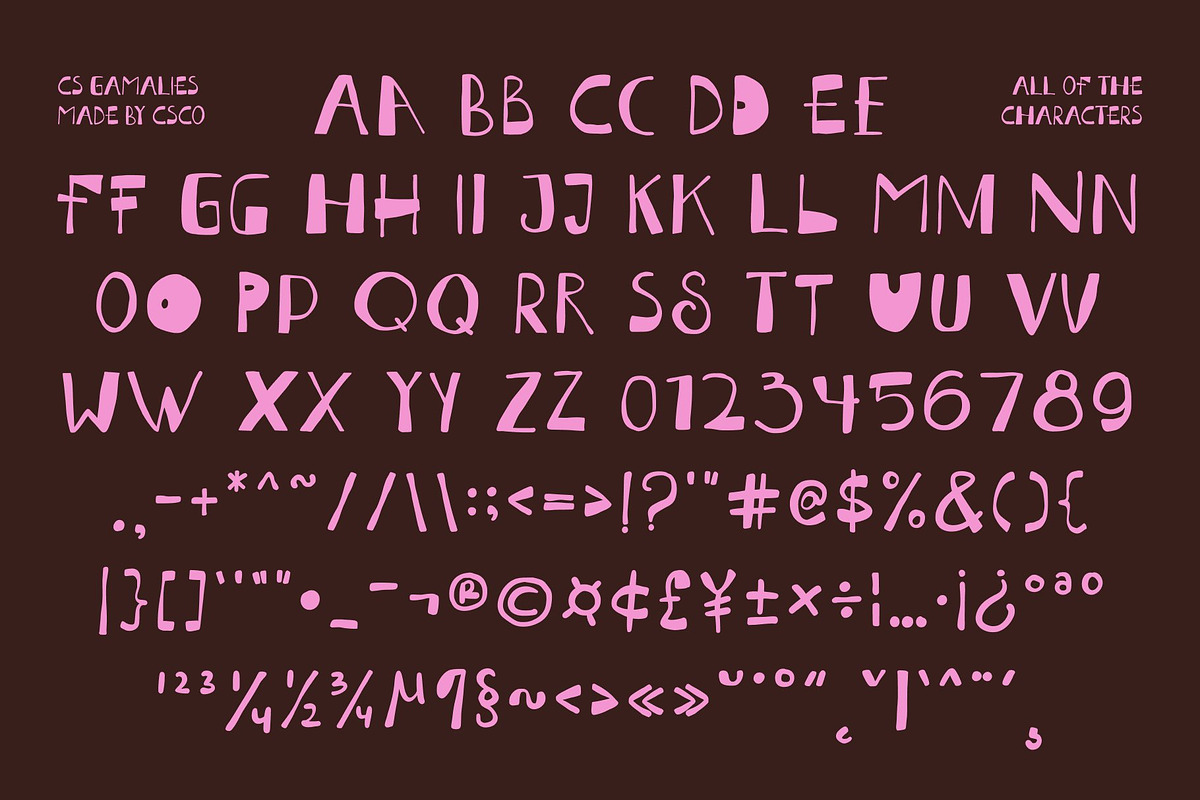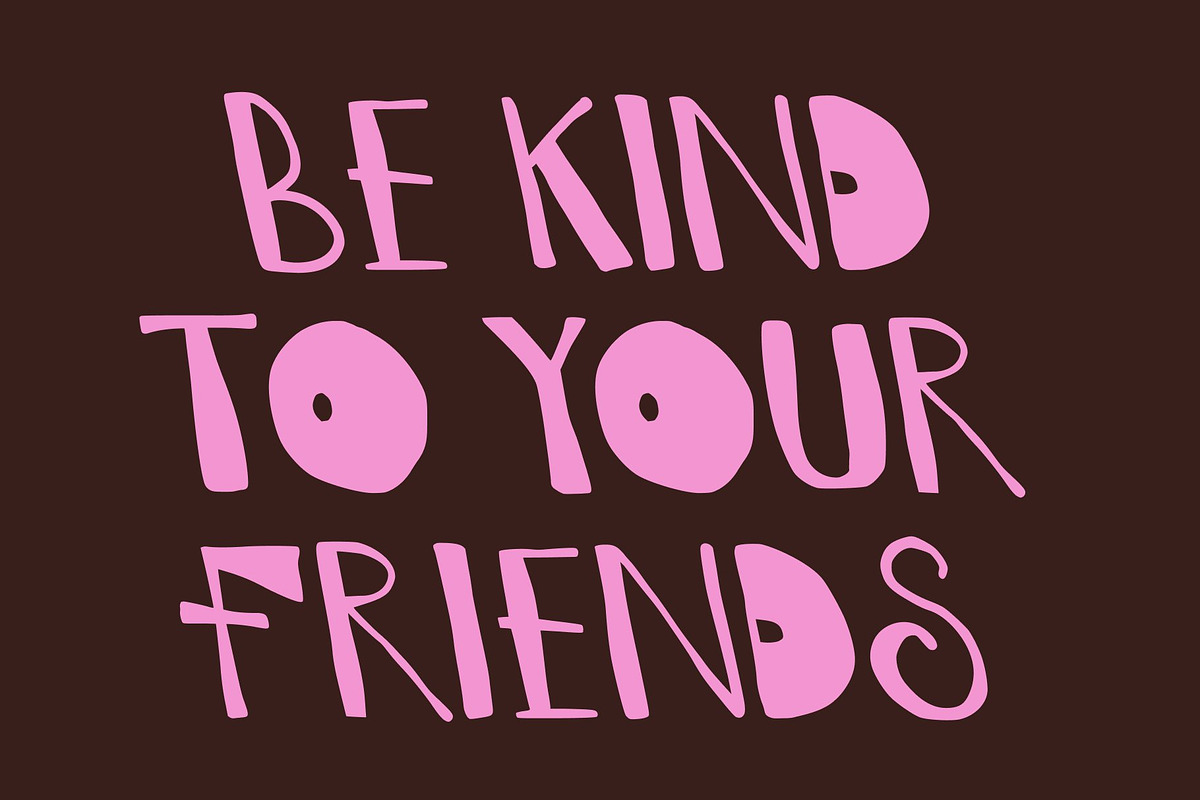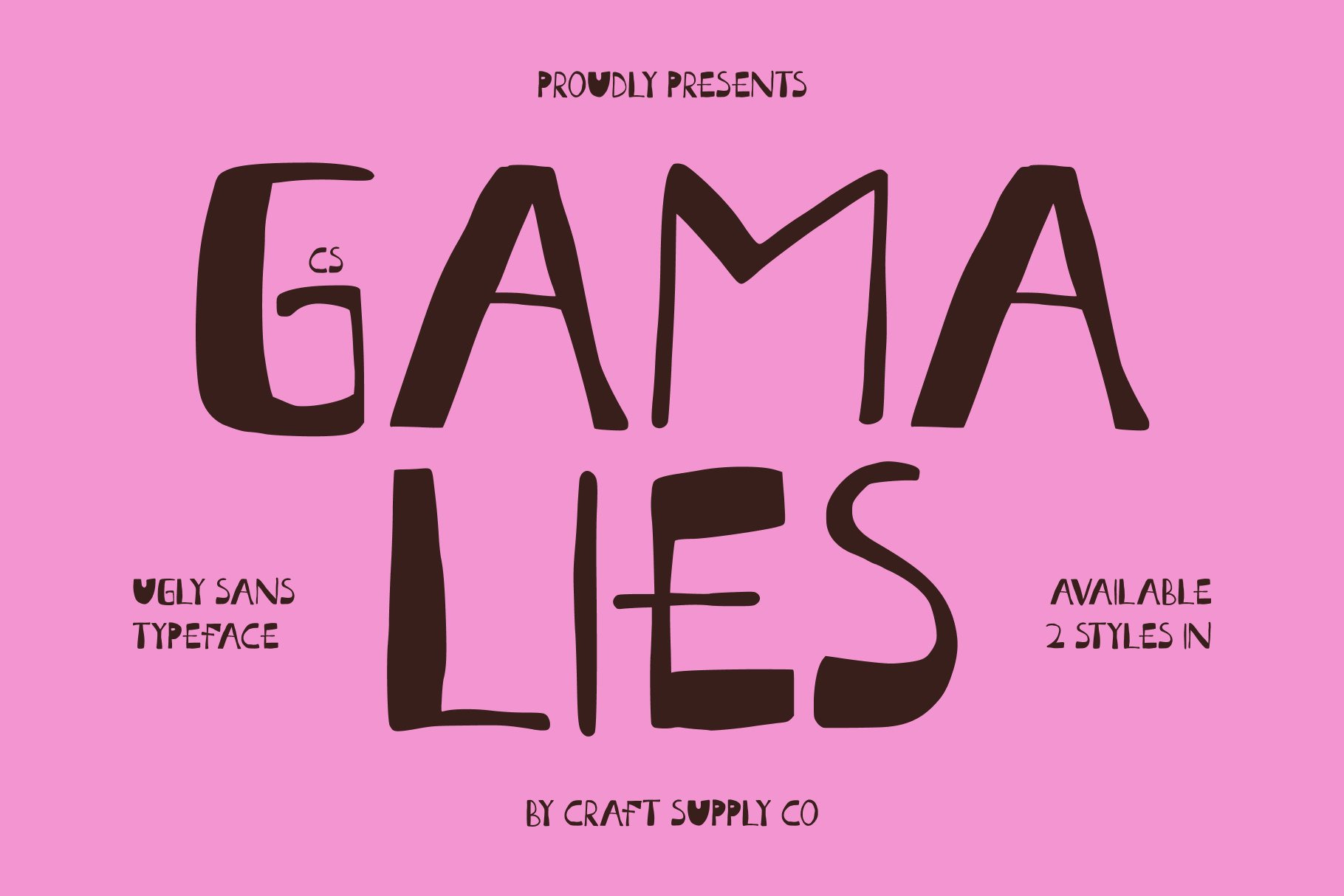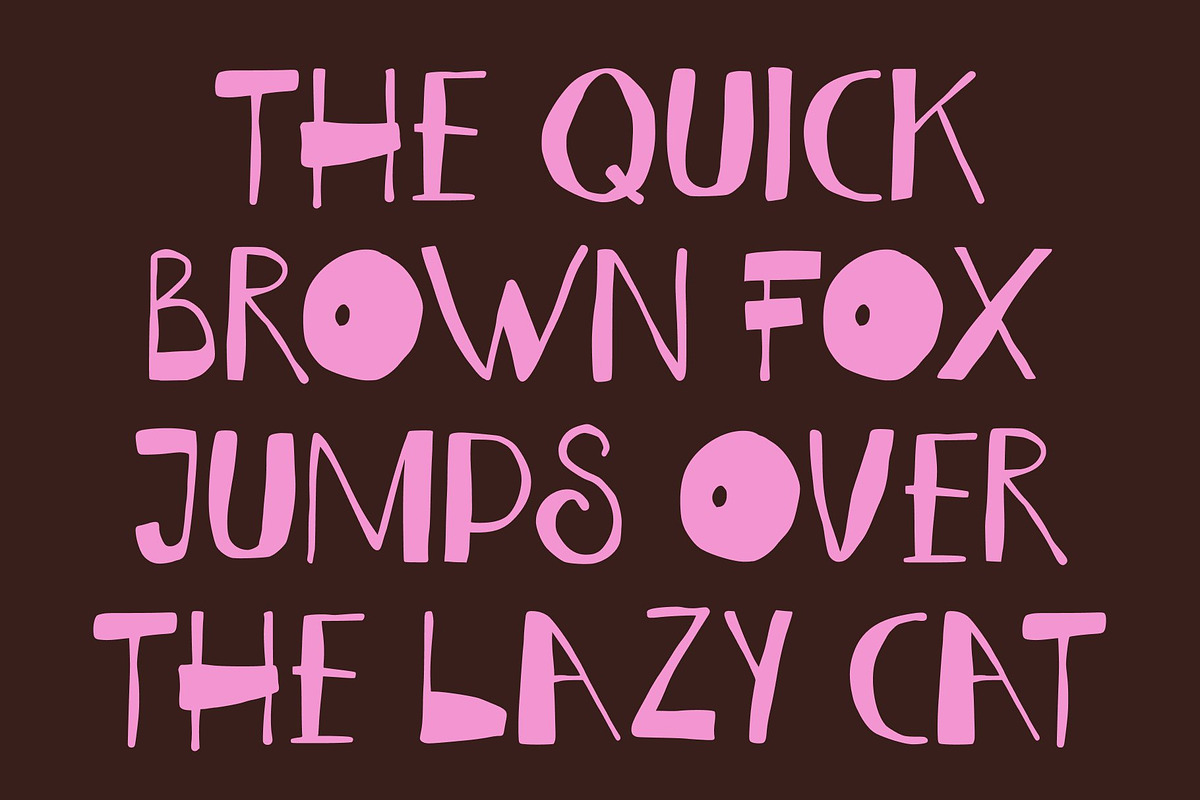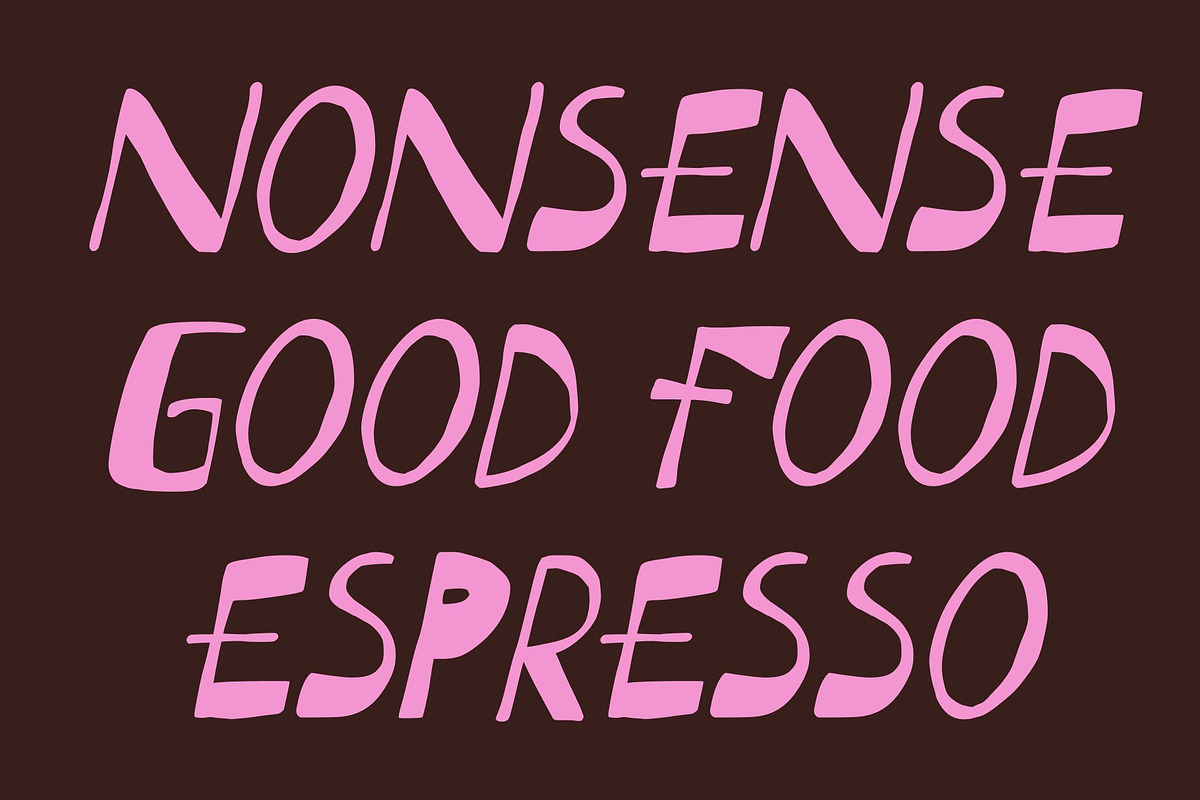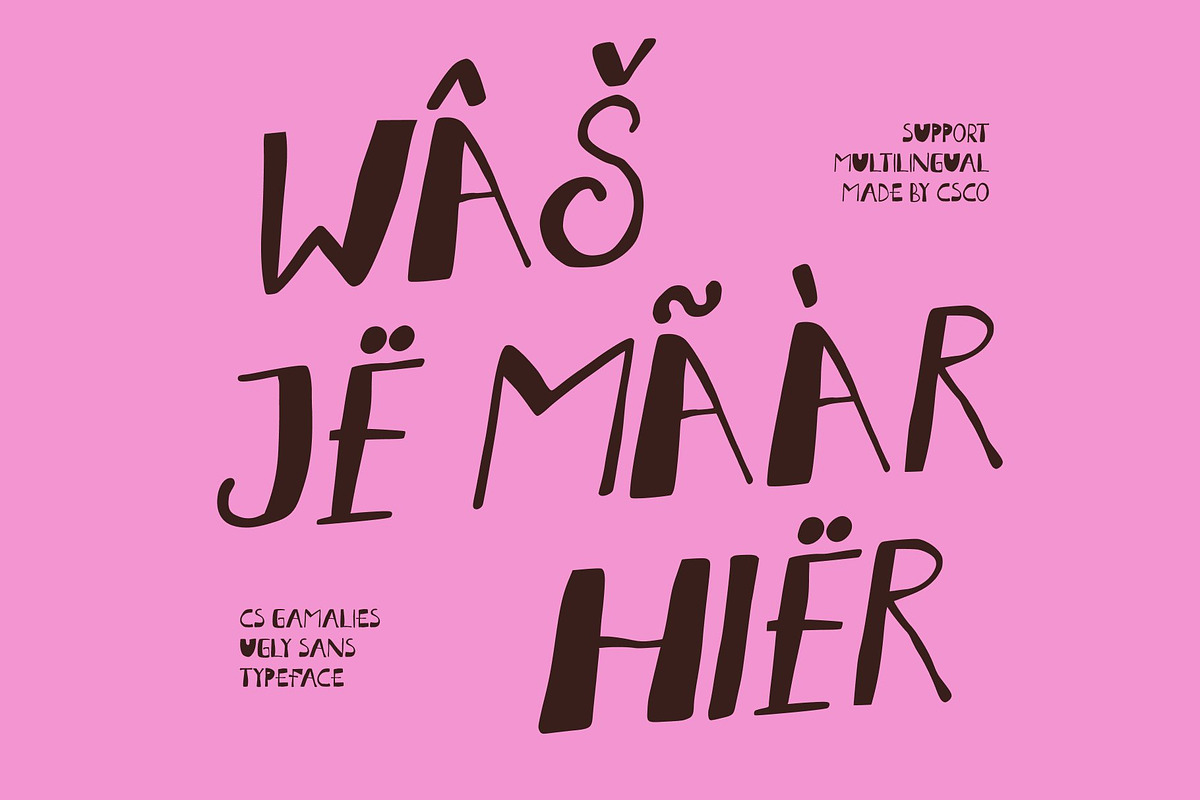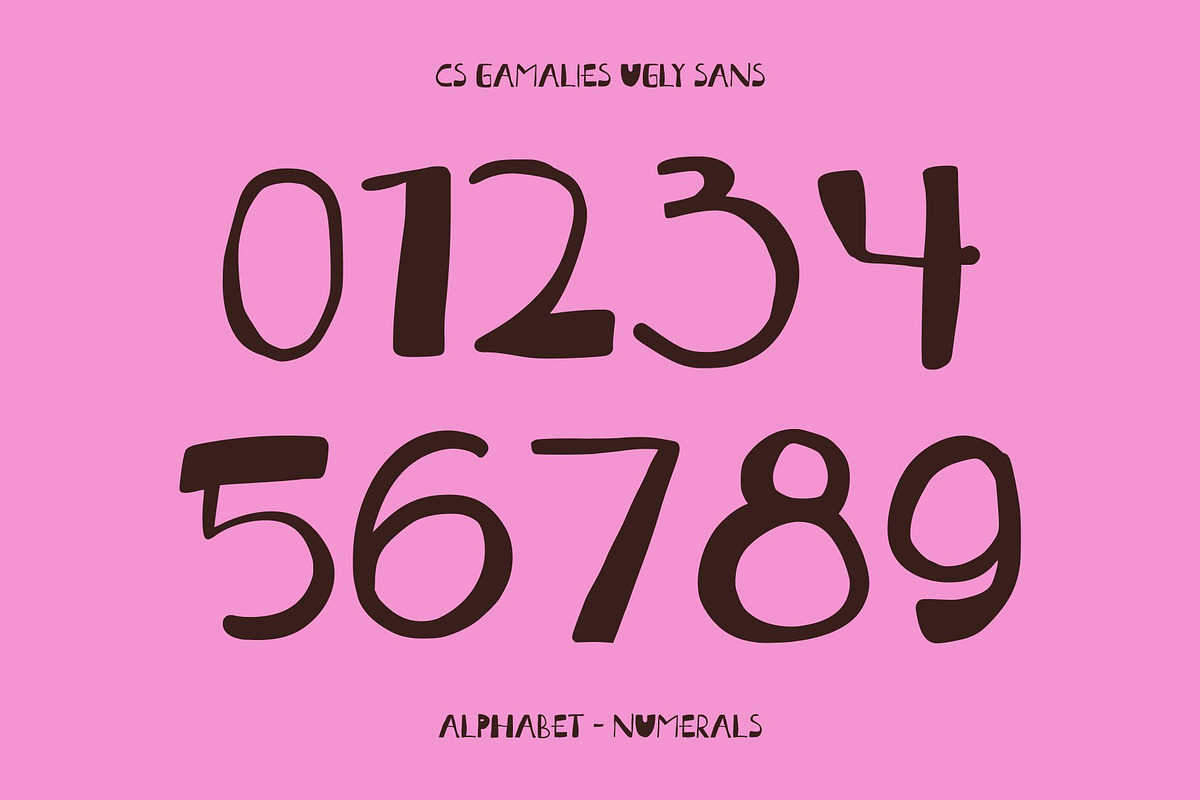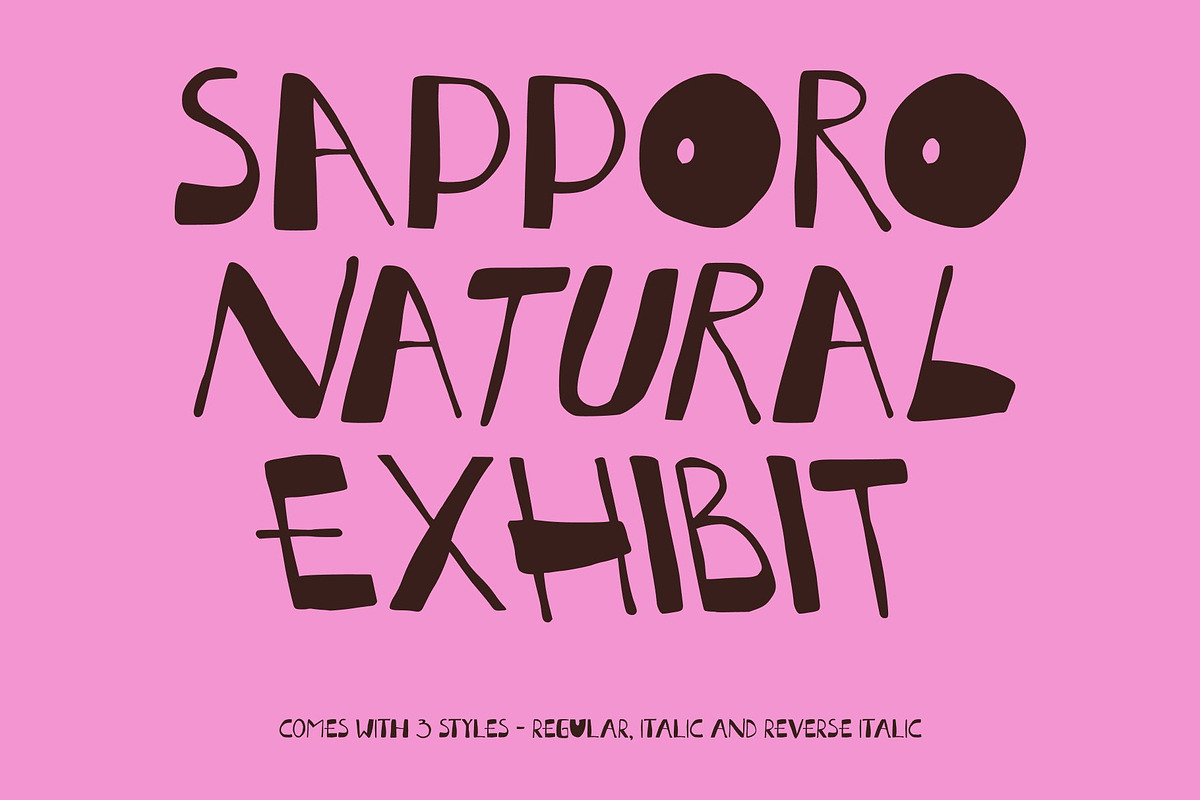
CS Gamalies – Ugly Font
CS Gamalies – Playfully Ugly Display with Bold, Energetic Character
Ugly Style Reimagined with Playful Energy This is an ugly display font that embraces irregularity with bold confidence. Instead of perfection, it celebrates quirky shapes, uneven strokes, and expressive forms that bring unstoppable energy to your designs. Its intentionally “ugly” aesthetic transforms into a powerful visual style fun, youthful, and full of personality.
Irregular Strokes for a Raw, Energetic Look The charm of this font comes from its wild, uneven strokes that feel hand-drawn and unapologetically messy. These quirky details inject life into every letter, giving your text a raw, spontaneous feel. The imperfect structure enhances its playful nature, making your designs look lively, fun, and irresistibly unique.
Friendly Shapes for Youthful Visual Appeal Despite its “ugly” concept, maintains friendly and approachable shapes that keep the design lighthearted. The rounded, soft elements add warmth, while the quirky construction adds excitement. This balance creates a look that feels young, imaginative, and wonderfully unpredictable perfect for playful themes.
Ideal for Youth Branding, Children’s Designs, and Fun Projects This font shines in youth branding, children’s design, fun projects, playful posters, packaging, and creative layouts. Use it for headlines, energetic visuals, kids’ products, bold logos, or any design that needs chaotic charm and joyful expression. With its quirky strokes and energetic personality, brings bold creativity and youthful fun to every project.